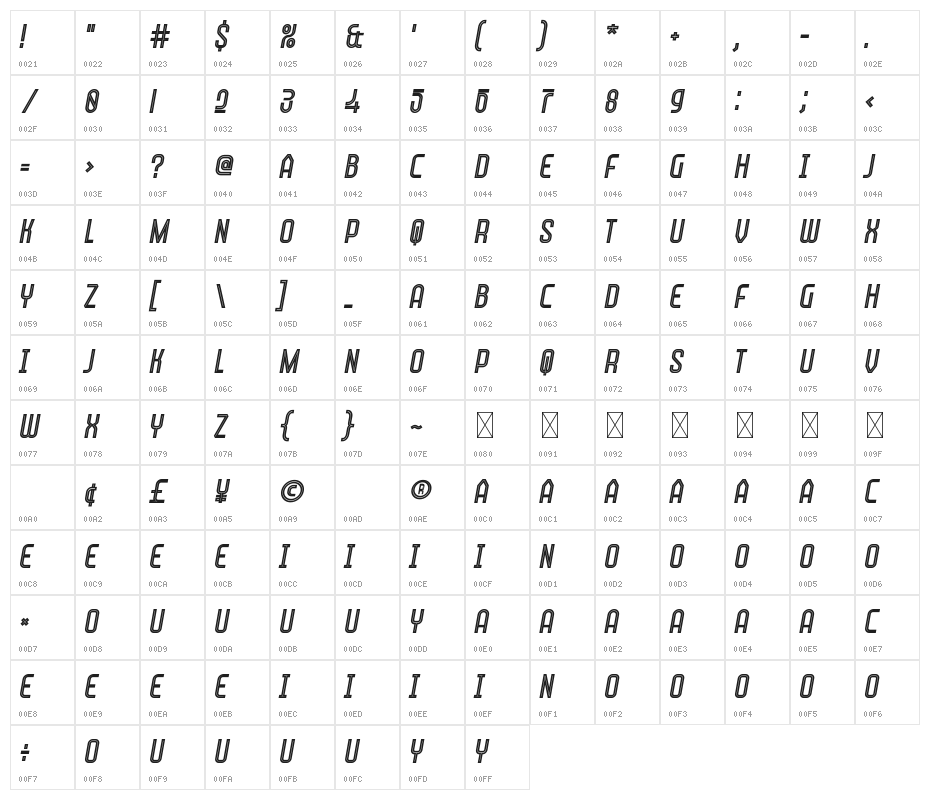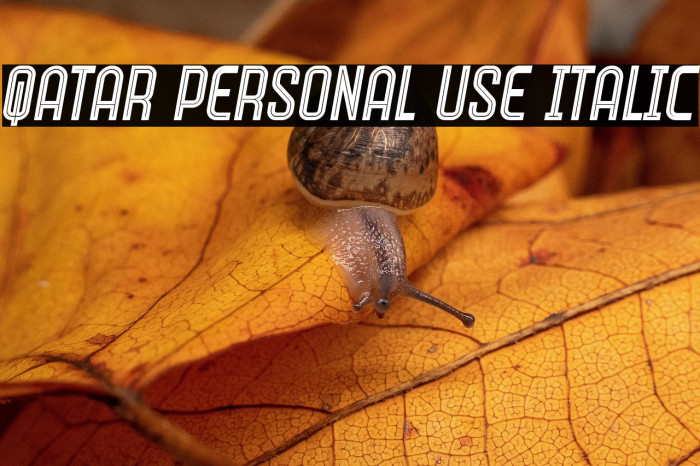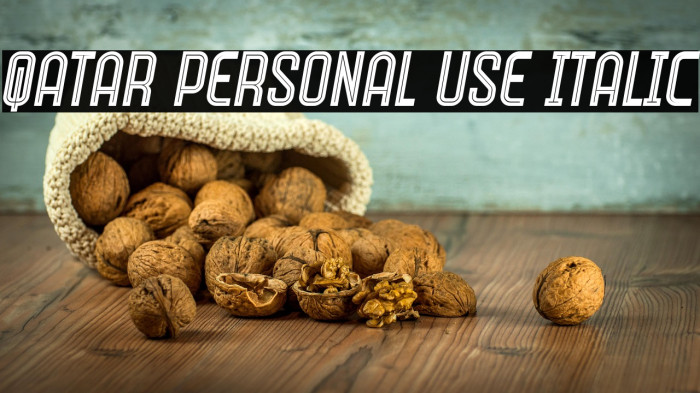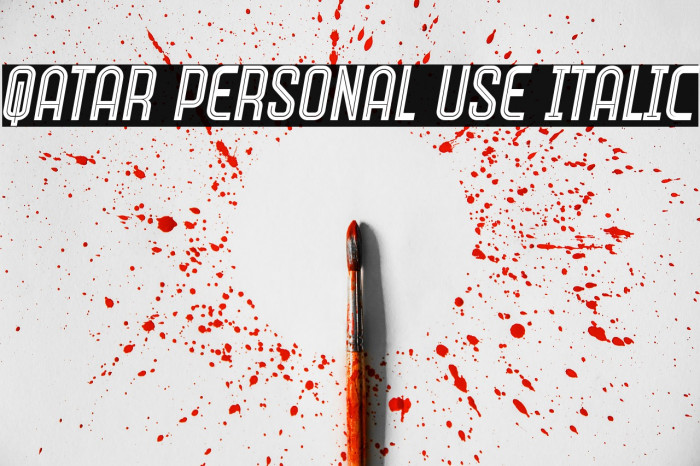
Qatar Personal Use Italic Font
Qatar Personal Use Italic Description
This font features a bold, italicized style with a modern and dynamic appearance. The characters are outlined, creating a hollow effect that adds depth and dimension. The uppercase and lowercase letters maintain a consistent slant, enhancing the italicized look. The numbers and special characters follow the same design principles, ensuring uniformity across all glyphs. The font's geometric shapes and clean lines make it suitable for contemporary design projects. Its unique style is eye-catching and can be used to create a strong visual impact.